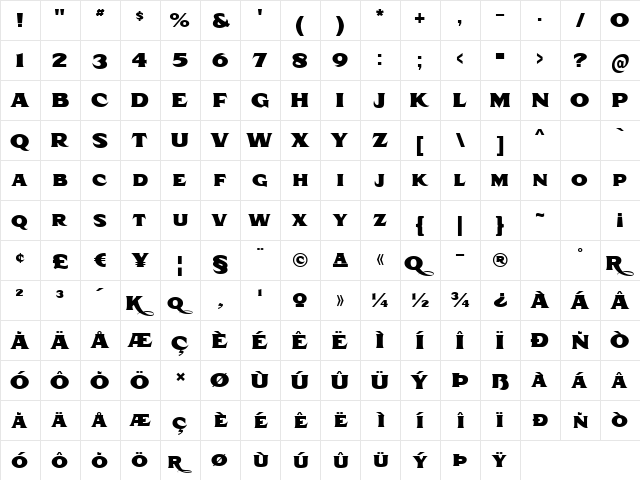
Taroca Regular
Design Context for Taroca Typeface
Taroca offers clean, dependable letterforms without strong stylistic allegiance, making it a practical choice for designers who need flexibility.